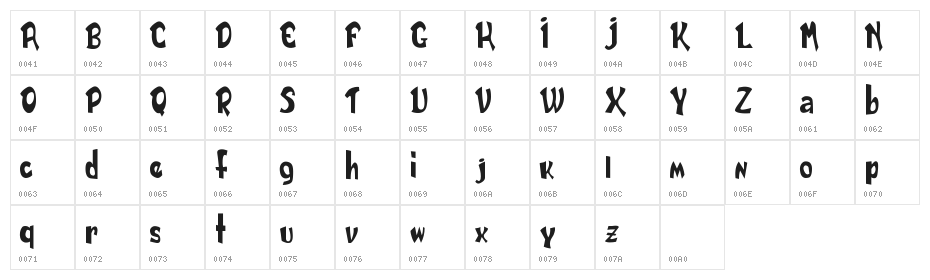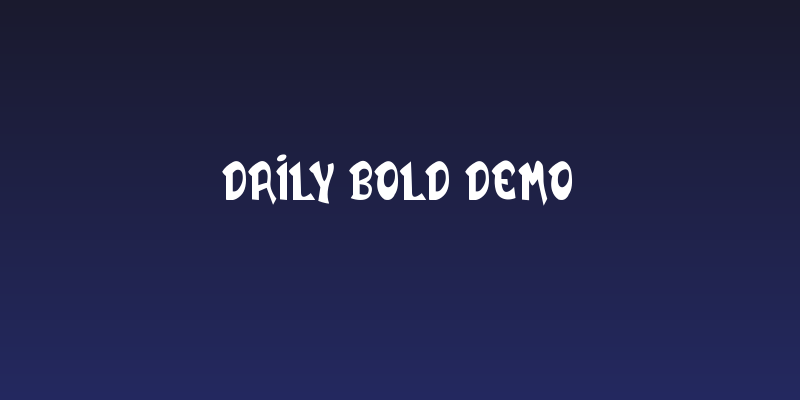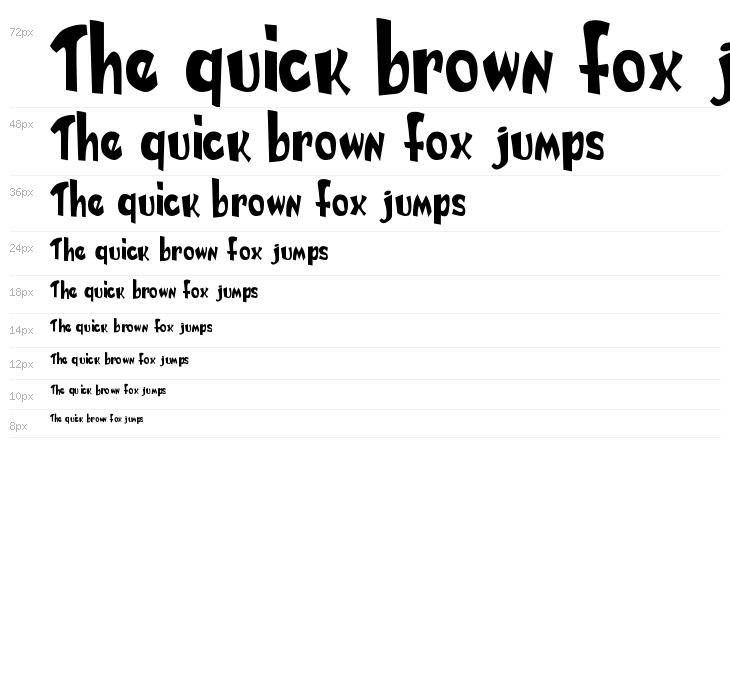
DAILY BOLD demo Font
DAILY BOLD demo Description
This font features a bold and dynamic style with a strong presence. The characters are designed with a playful and slightly irregular form, giving it a unique and eye-catching appearance. The uppercase letters have a distinct angularity, while the lowercase letters maintain a consistent flow with subtle curves. The font's bold weight makes it stand out, and the slightly condensed width adds to its compact and impactful look. The character spacing is tight, enhancing its boldness and making it suitable for attention-grabbing designs. The high contrast in stroke thickness further emphasizes its bold nature, making it ideal for headlines and display purposes.
Proposed ProjectsIdeal for posters, logos, branding, and any project requiring a bold, attention-grabbing typeface.